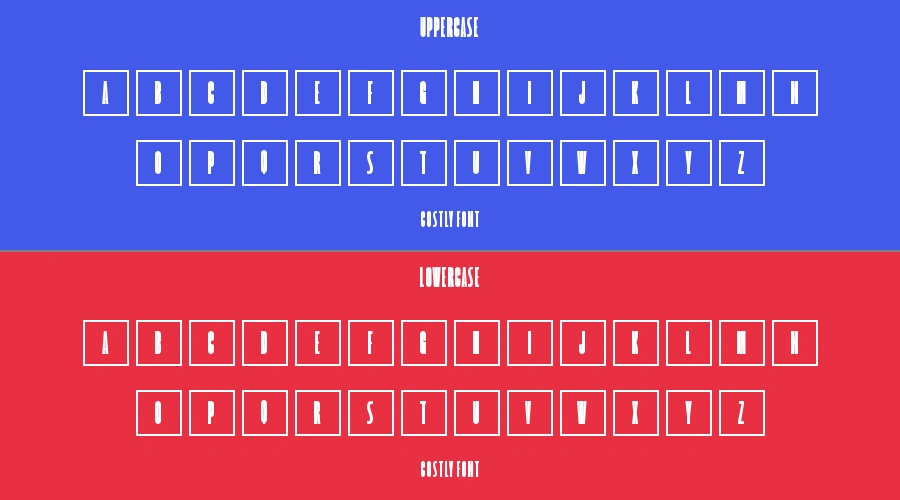
About Costly Font
Costly Font stands out for its distinctive combination of unique personality and refinement. Ideal for engineering specs, it provides the integrity and quality certification that professional projects demand. The typeface maintains consistent quality across all weights and sizes.
Key features include refined humanist proportions and practical traditional figures, enhancing typographic expression. In specification lists applications, Costly Font demonstrates exceptional color consistency. The counter shape and contemporary relevance contribute to its distinctive character and professional appeal.